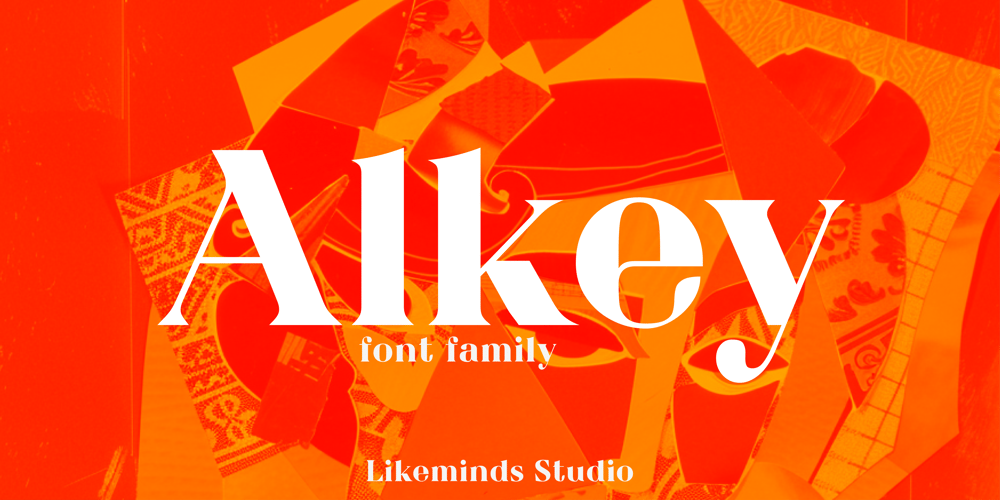
Alkey Font Family was designed by Abhya Chawla and published by Likeminds Studio. Alkey contains 6 styles and family package options. ALKEY is a beautiful modern serif font with elegant curves blended with sophisticated sharp definition of contours. It ushers bold statement as headline and sharp copy in small sizes at the same time. It works beautifully for branding, logo identities, design artworks, packaging, print and digital.Modern & contemporary designs or traditional artworks, it’s a timeless piece of work and made with love. Spread the happiness.Happy to have your thoughts.